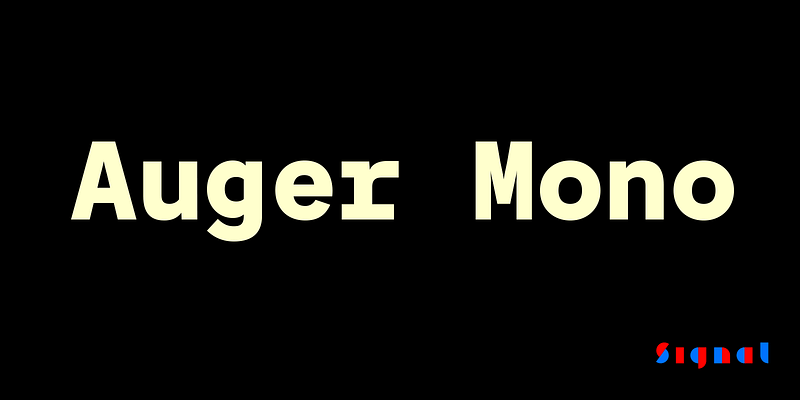
Auger Mono Font Free Download is a modern monospaced typeface that combines technical precision with a clean and readable design. Its fixed-width characters and balanced proportions make it ideal for coding, software design, technical documentation, and projects that require clear and consistent text formatting.
Auger Mono offers a sharp, contemporary aesthetic with simple and efficient letterforms, making it a great choice for programming environments, user interfaces, and web design where legibility is key. The font supports both Latin and some special characters, ensuring compatibility for a wide range of text applications.